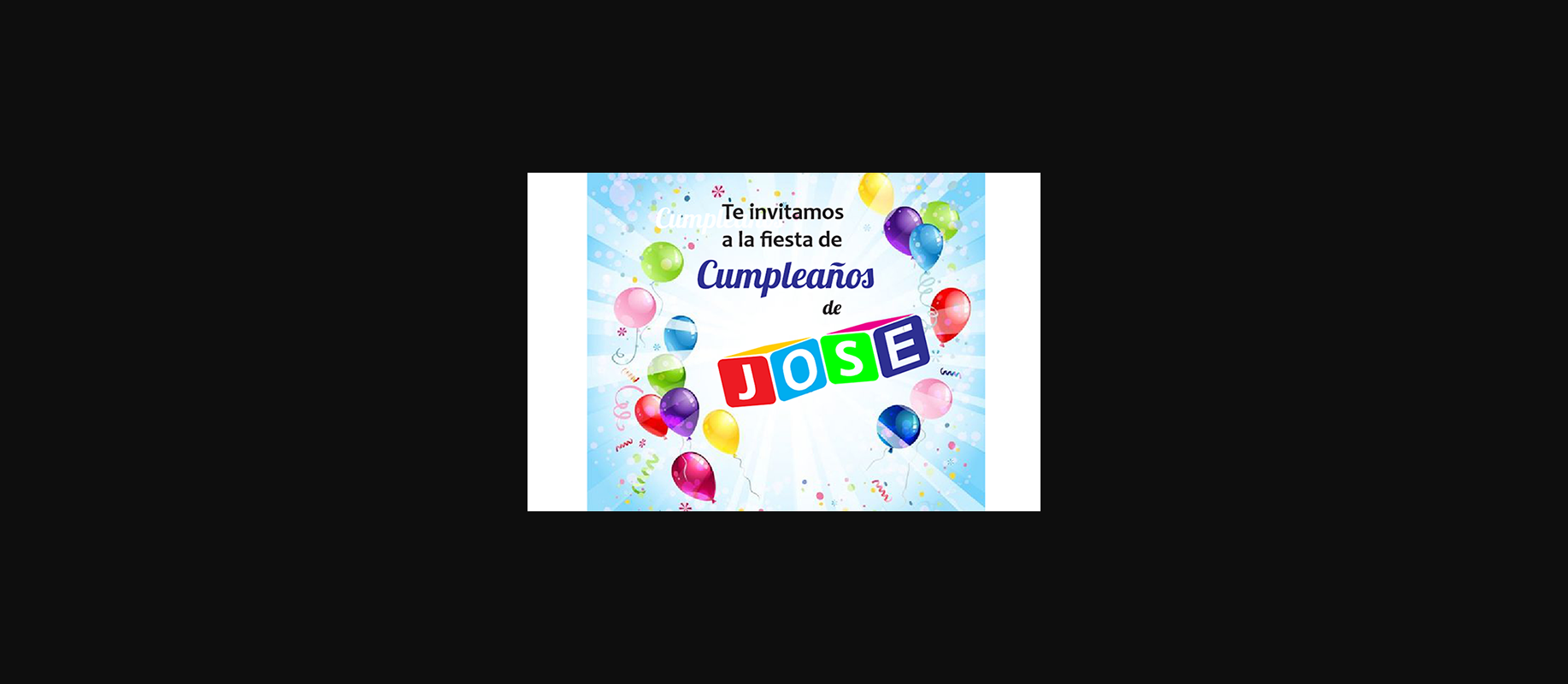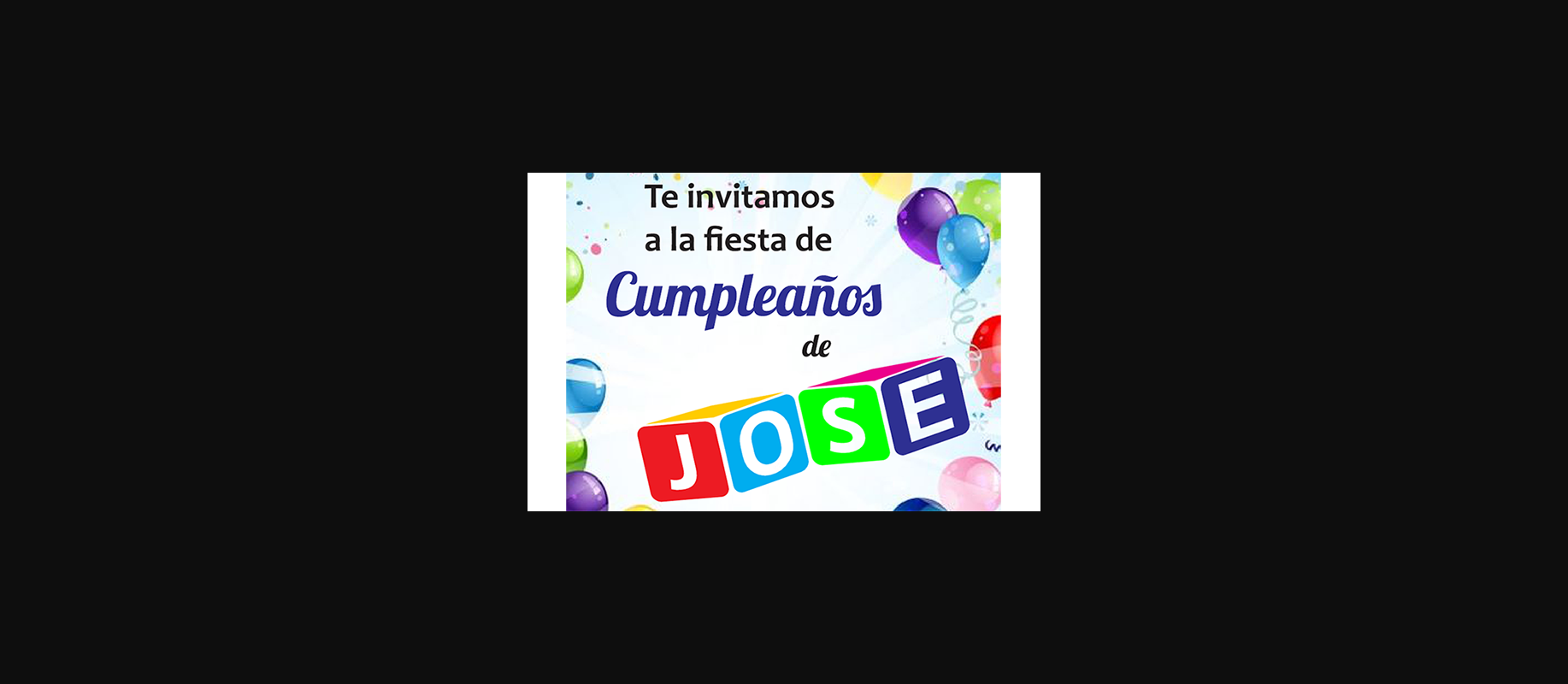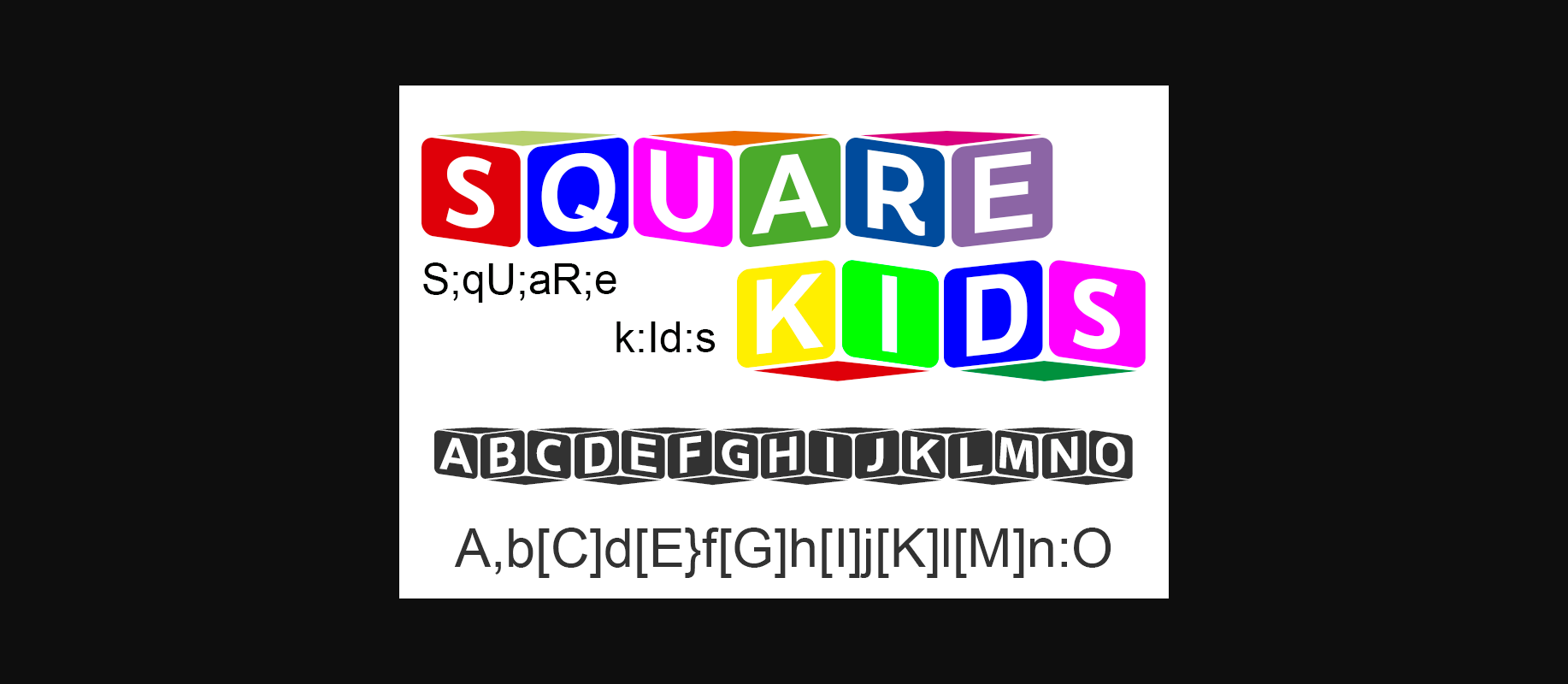
HomeDecorative FontsSquare Kids Font Decorative Fonts Square Kids Font FacebookXPinterestWhatsApp 1 of 5 ... Square Kids Font Poster 2... Square Kids Font Poster 3... Square Kids Font Poster 4... Square Kids Font Poster 5... About Square Kids Font Square Kids is a fun and unique decorative font, that combines dices with the joy of being a child. Add this interestingly designed font to your favorite creations and they will instantly come to life. DOWNLOAD NOW People also explored Thicker Font Aratama Font Military Scribe Balista Font Aquiline Font Piranya Font Lucky String Font Straightwell Brigitte Font 389 0 TagsSquare Kids Font Previous articleForeverish FontNext articleHeart Spider Monogram Font LEAVE A REPLY Cancel reply Comment: Please enter your comment! Name:* Please enter your name here Email:* You have entered an incorrect email address! Please enter your email address here Website: Save my name, email, and website in this browser for the next time I comment. Personal Use Free BD Fluke Personal Use Free Read more about this font Williana Personal Use Free Read more about this font The Quick Personal Use Free Read more about this font Entin Personal Use Free Read more about this font BLOG How to Cut Any Font on Cricut: Convert a Font to SVG (Free) Turn any font into a clean SVG so it cuts crisp on Cricut - a quick 3-step workflow using a free font-to-SVG tool. How to Install and Use Fonts on Windows, macOS, and Web Projects Exploring Font Trends Top 7 Google Fonts Alternatives for Faster and Privacy-Friendly Web Design (2025)